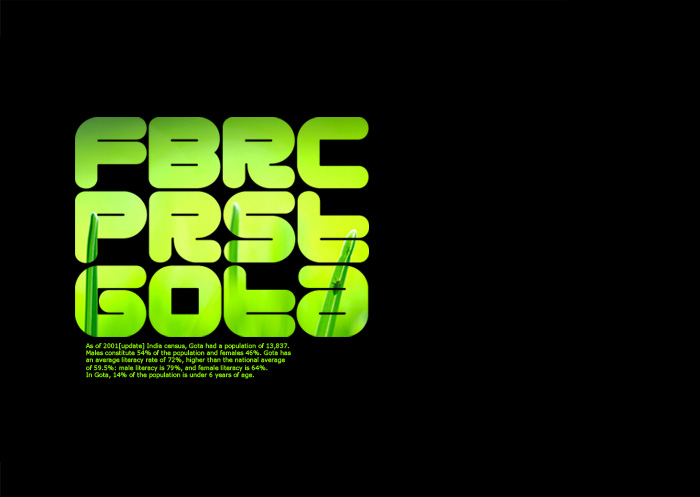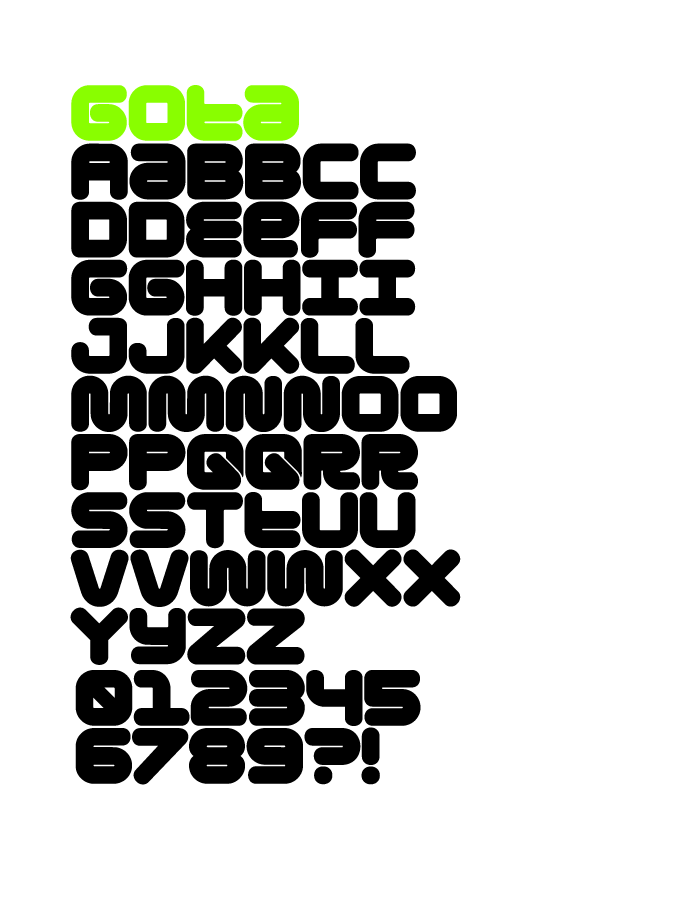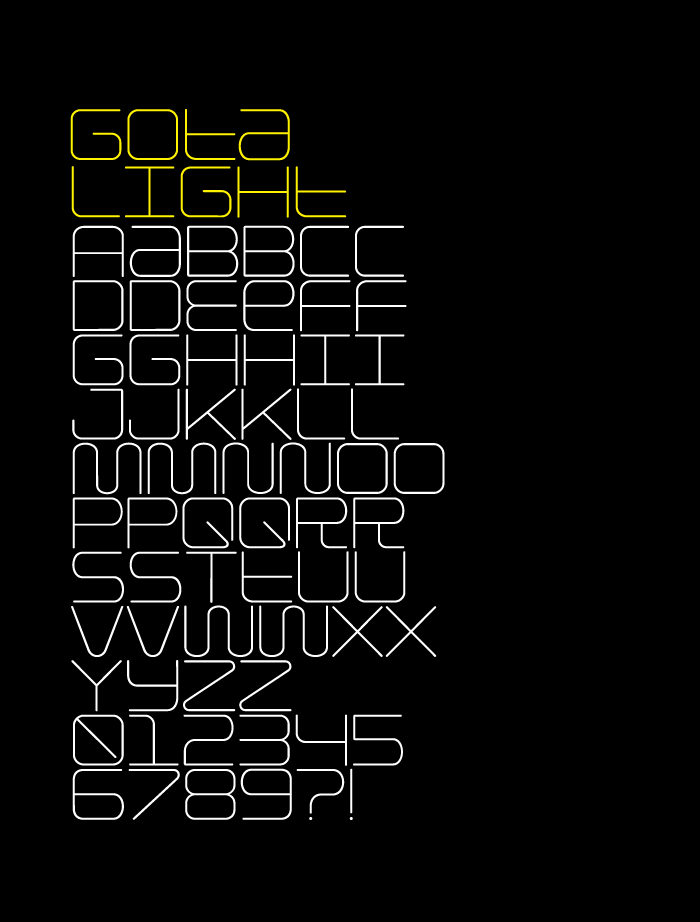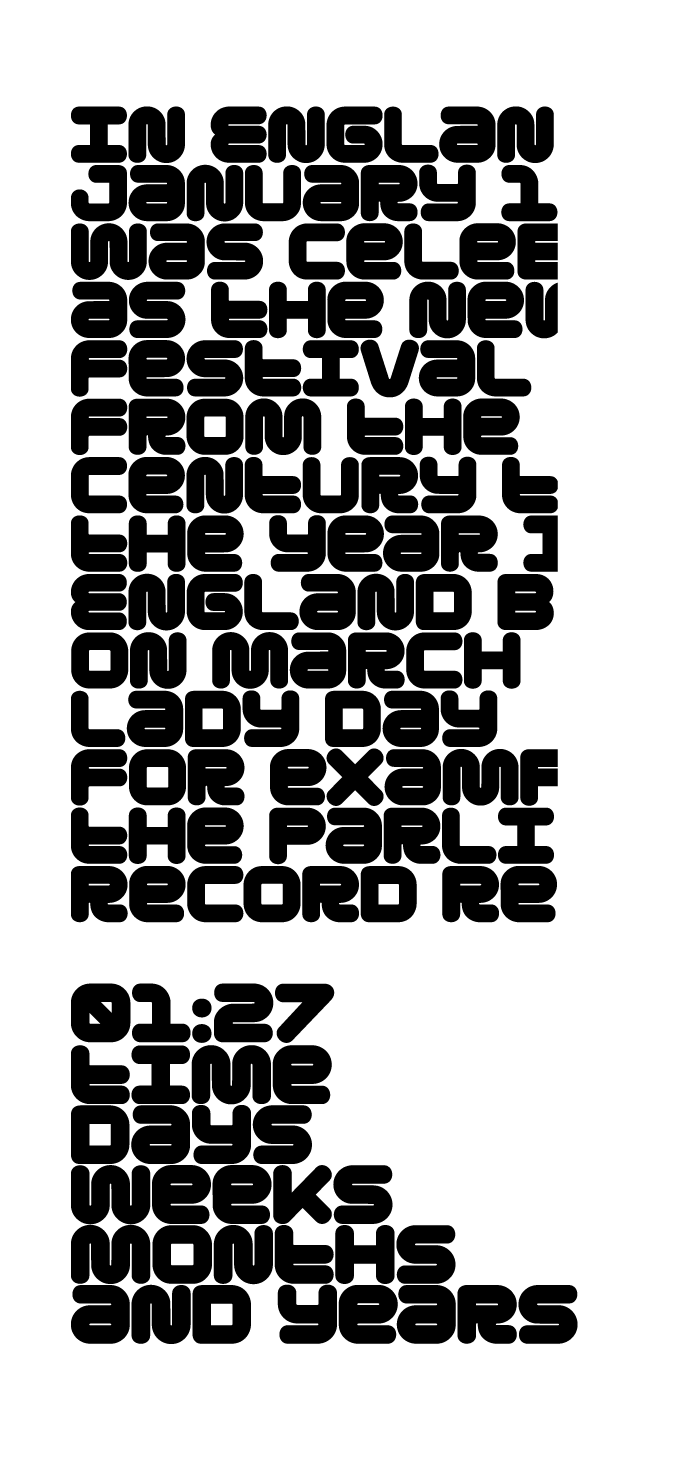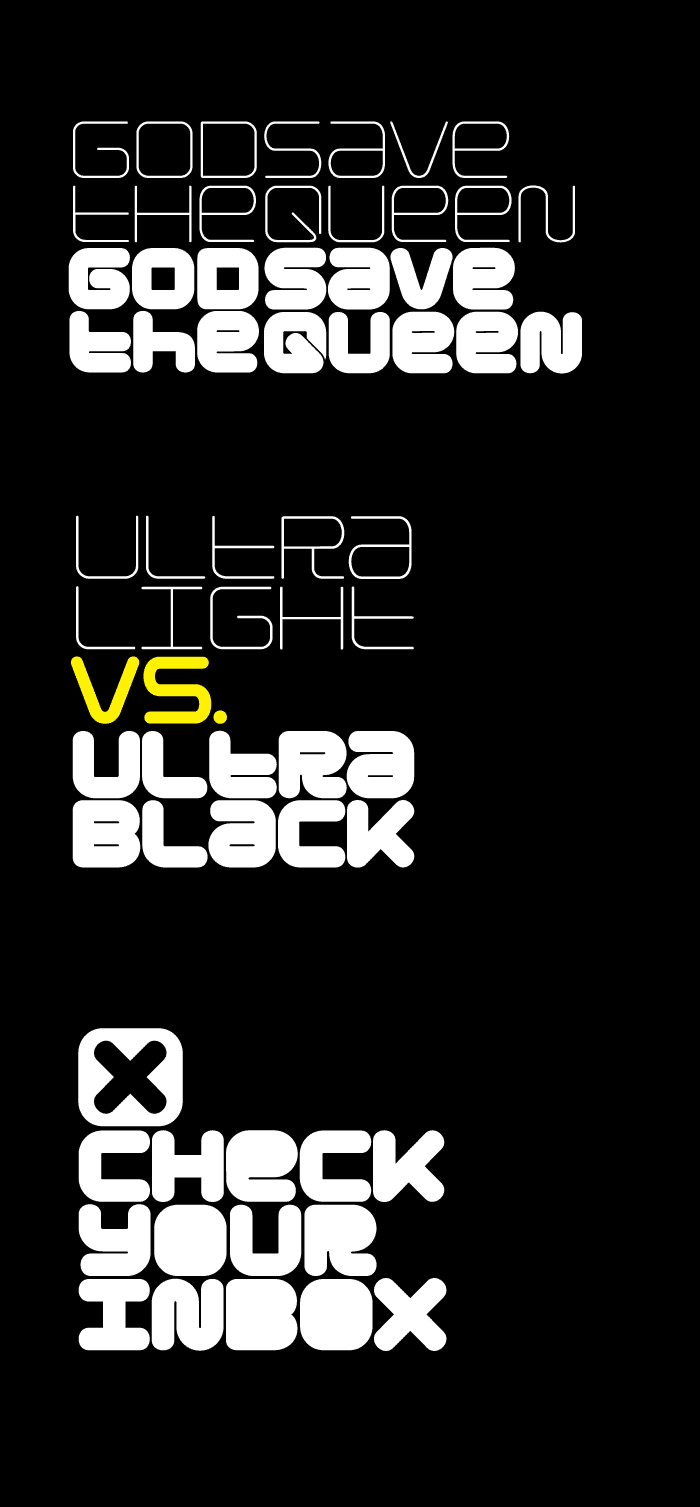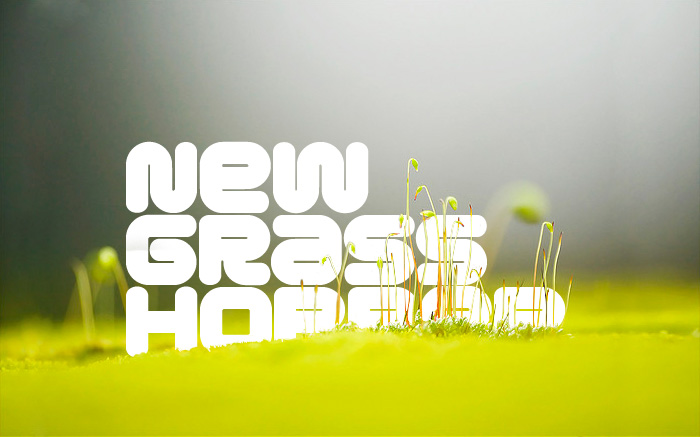
Gota Free font is applicable for any type of graphic design – web, print, motion graphics etc and perfect for t-shirts and other items like posters, logos.
GOTA FREE FONT